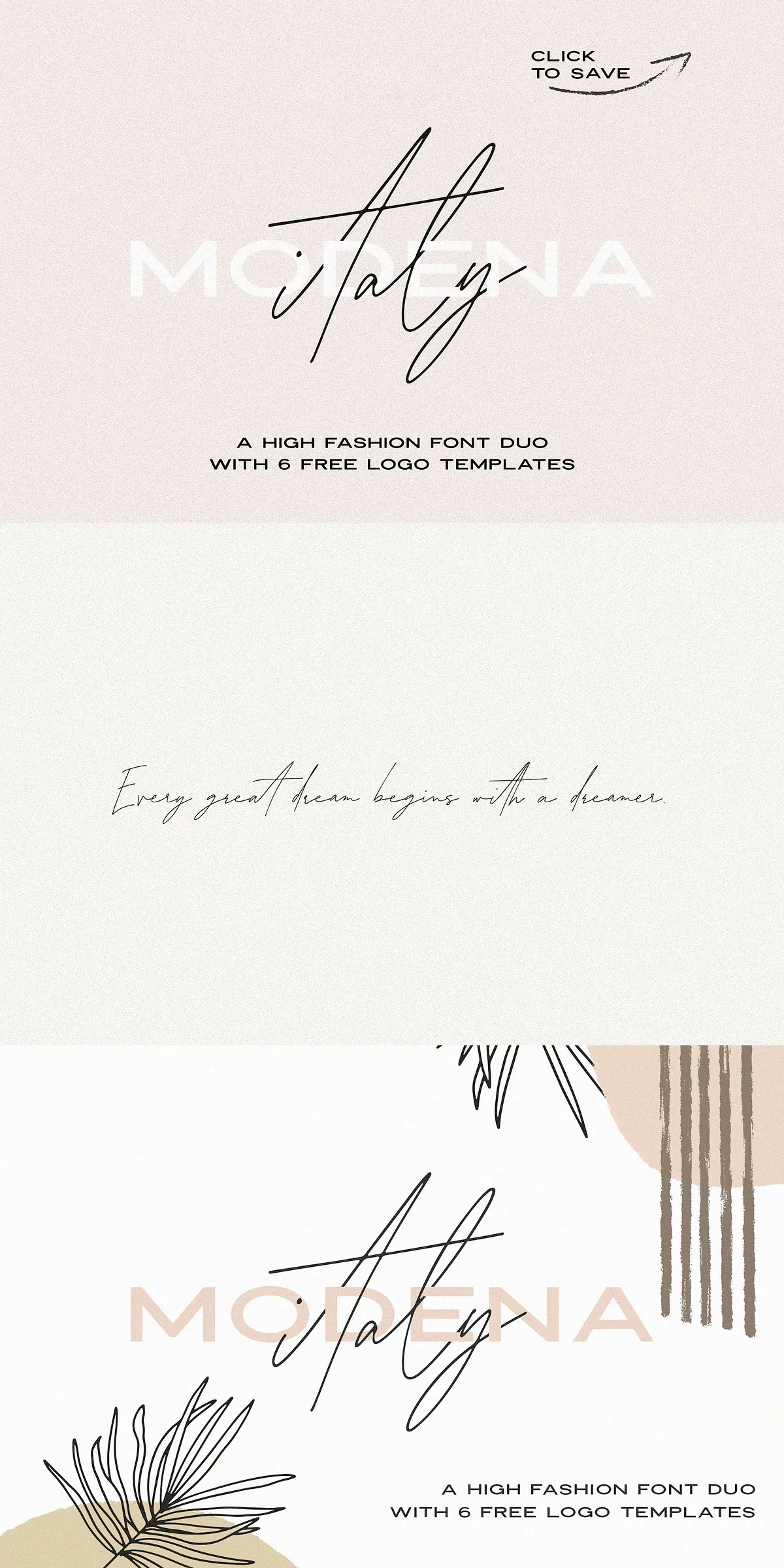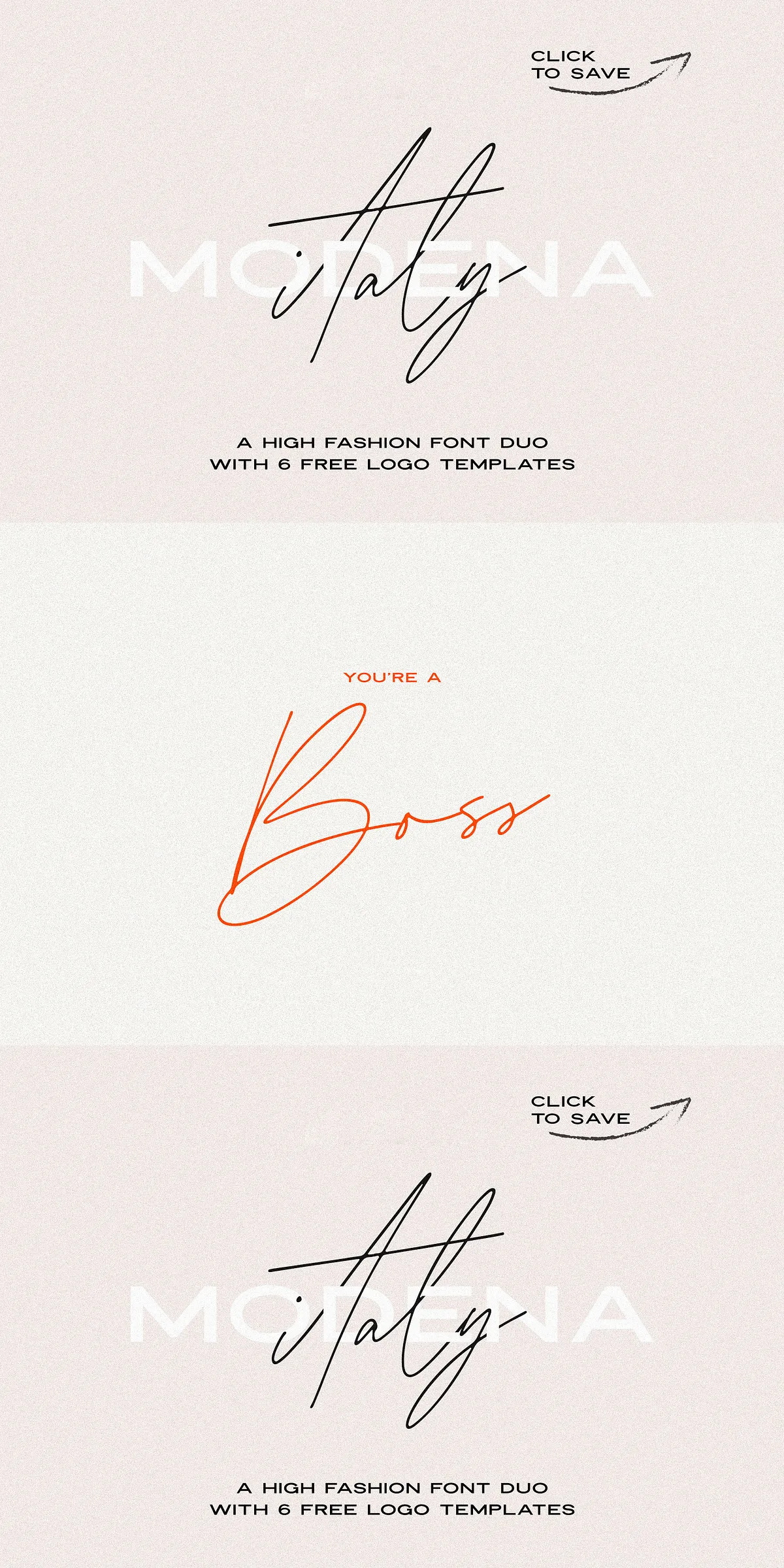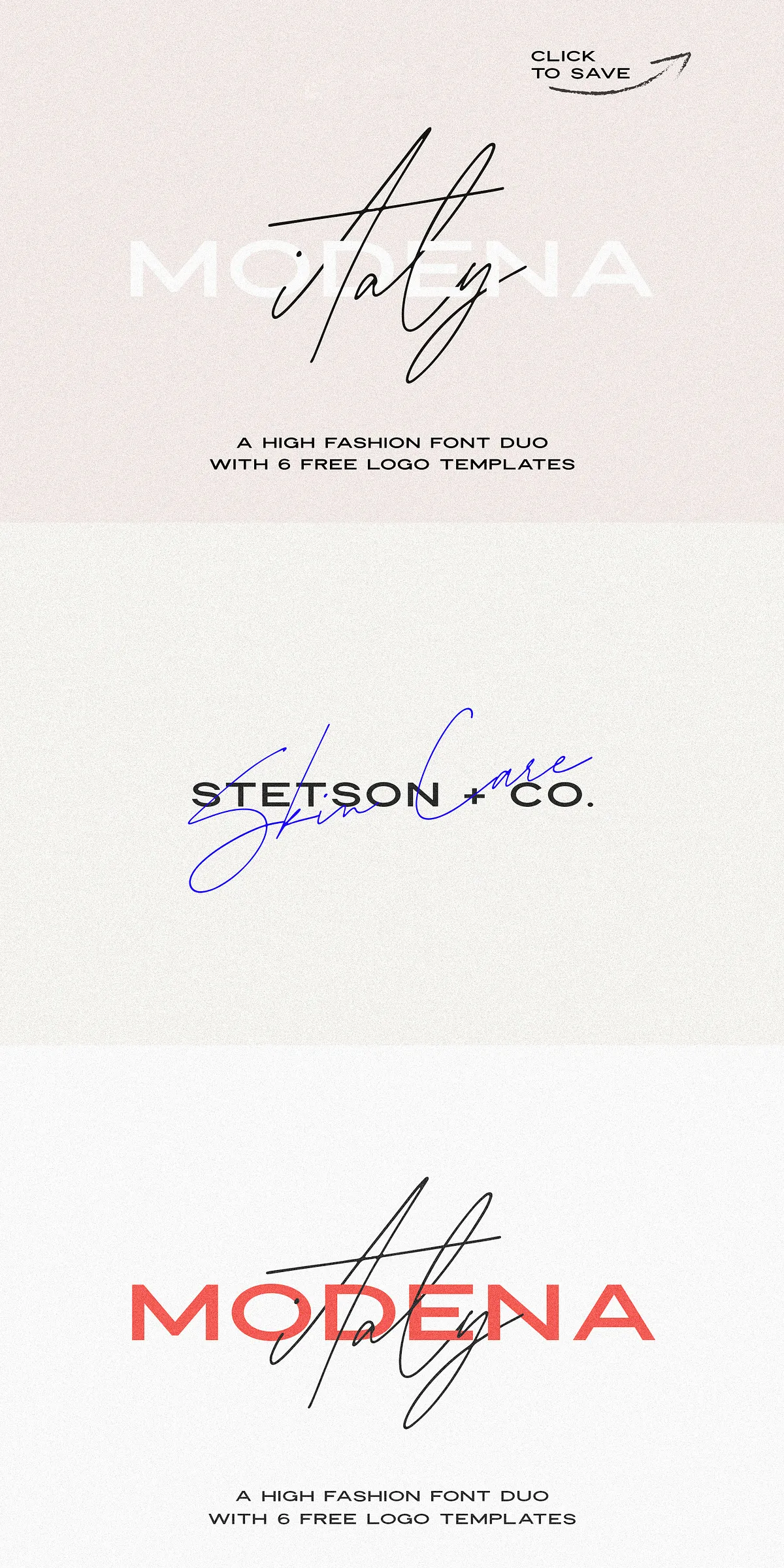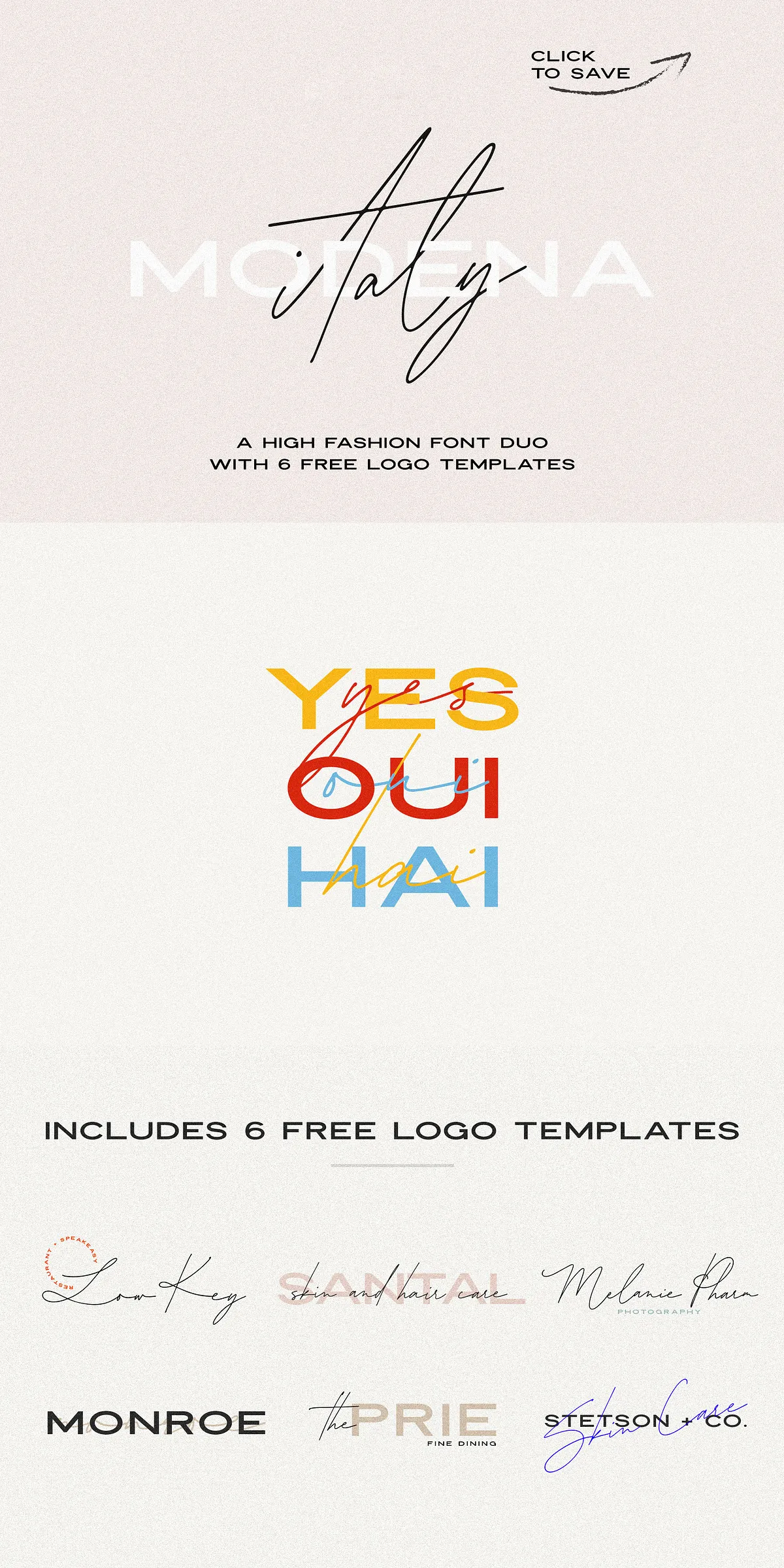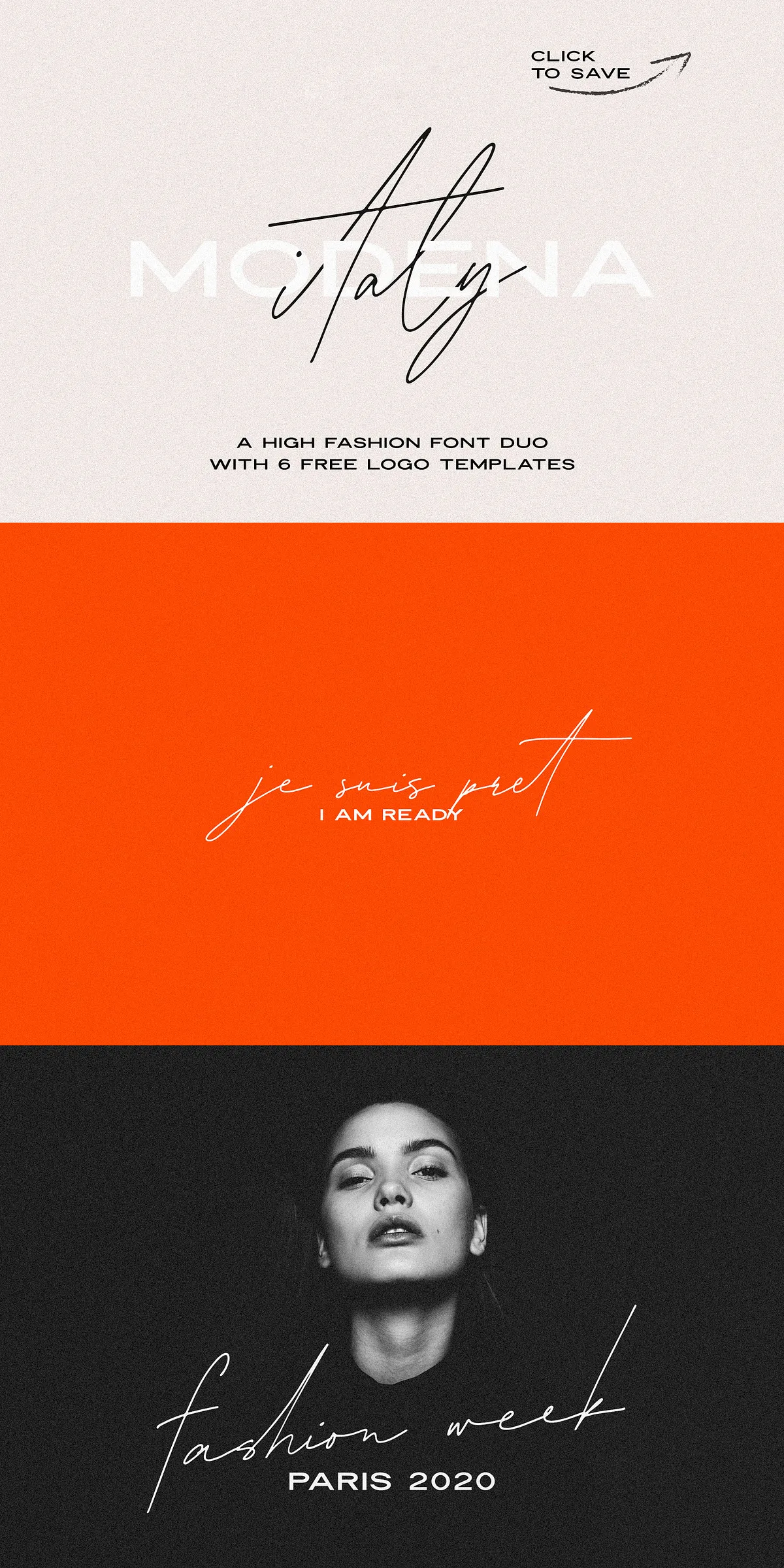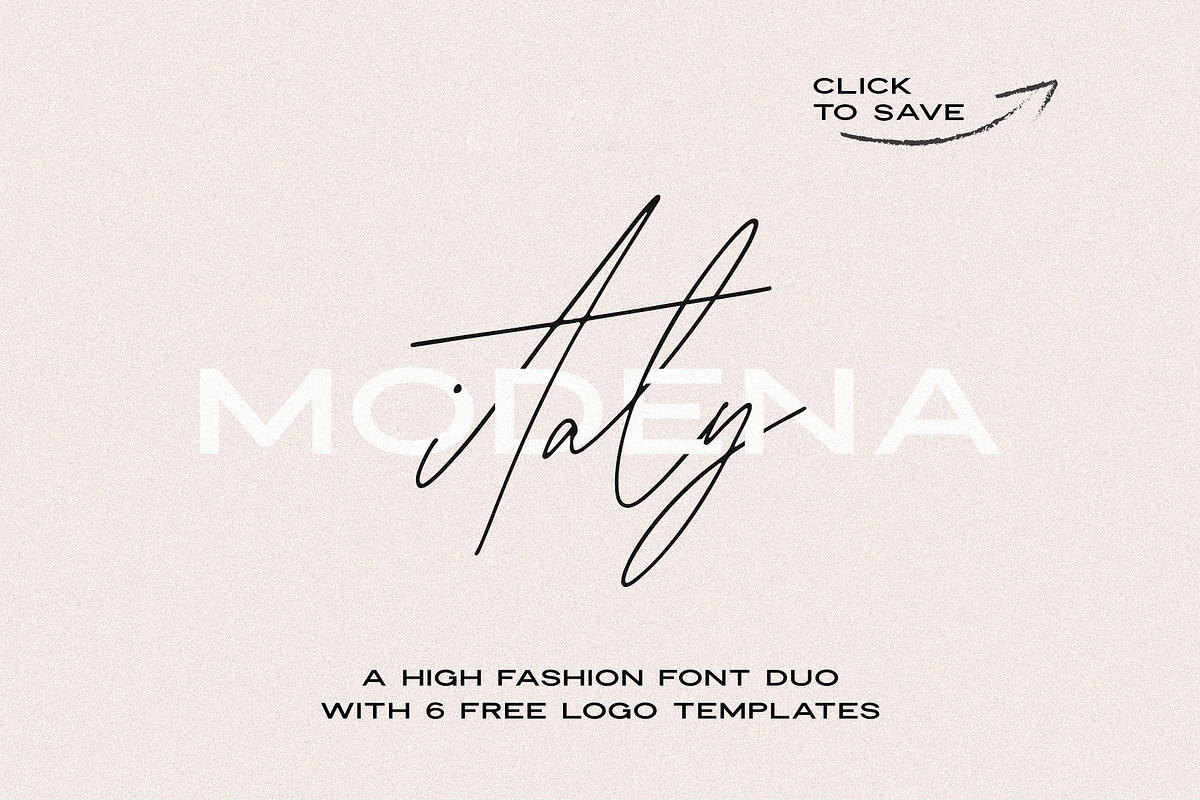
What Makes Modena Perfect For Logos And Elegant Brand Identity
Modena Script delivers graceful motion and authentic hand-lettered flair. With over 50 ligatures and a full set of alternates, the script reads as bespoke and artisanal. Modena Sans anchors the script with clean geometry and thoughtful spacing — it looks especially stunning when you increase tracking to 220 for airy, editorial lockups, or keep it at 0 for compact, confident wordmarks. Together the pair produces a dynamic contrast: fluid script shapes against structured sans forms, creating visual tension that elevates luxury brands and lifestyle projects.
How To Combine The Script And Sans For Strong Visual Impact
Place the script as the focal wordmark and use the sans for supporting information such as taglines, dates, or locations. For layered effects, use Photoshop layer masks so the script appears to weave through the sans — this technique emphasizes depth and craftsmanship. For simpler lockups, let the script stand alone as a signature-style logo and reserve the sans for address blocks, menus, and secondary headers. These practical combinations keep your visual identity flexible across print and digital formats.
Comprehensive Character Set And Multilingual Support Details
- Uppercase and lowercase letters with stylistic alternates for natural flow
- 50+ ligatures in Modena Script to produce realistic, hand-crafted connections
- Numbers and full punctuation for editorial and packaging needs
- Non-English language support for extended Latin glyph coverage
Practical Tips For Using Modena Across Projects
- Experiment with script alternates and ligatures to achieve a handcrafted look.
- Adjust sans tracking for display or compact treatments as needed.
Modena delivers a refined toolkit for designers who want to communicate elegance and modern luxury. With robust alternates, comprehensive file formats, and ready-to-edit templates, the duo helps you create polished brand identities and striking visual compositions without losing momentum during production.